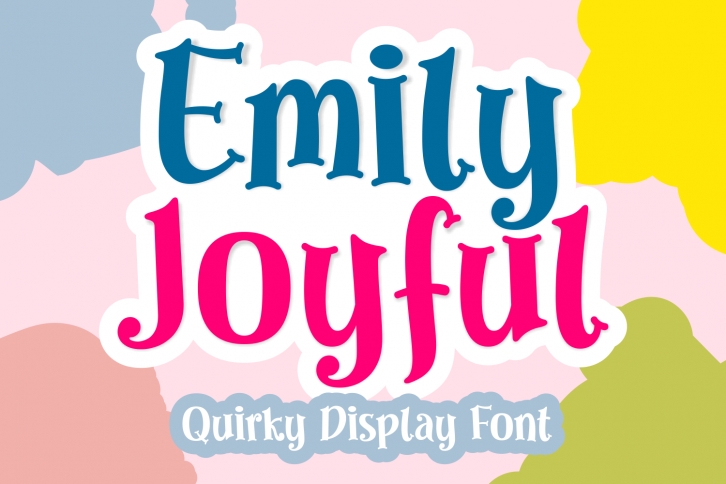
You will be jumping for joy when you have added this typeface to your font library! Emily Joyful is a bold and playful display font featuring rounded serifs. Its bouncy structure is sure to bring life to your next crafts, prints, digital designs, and more!